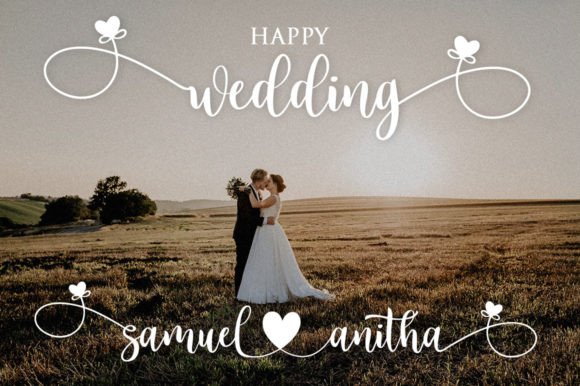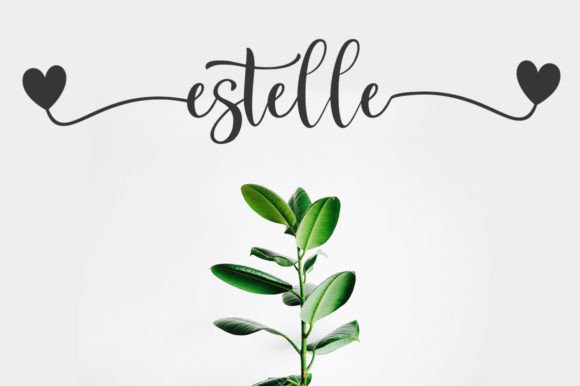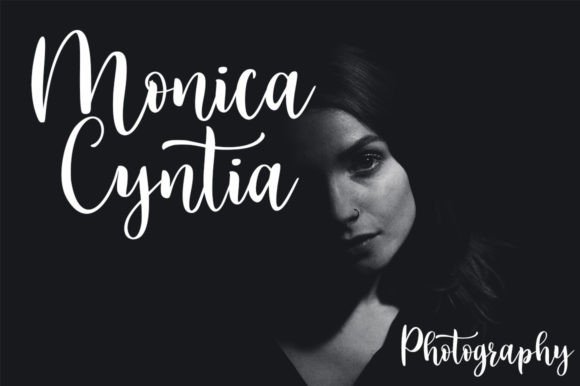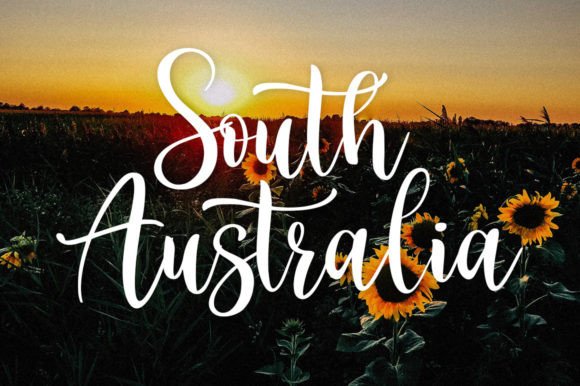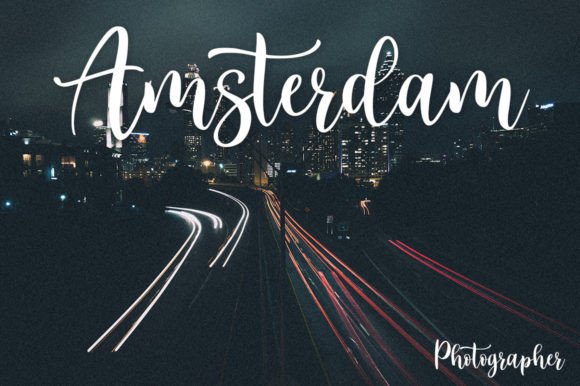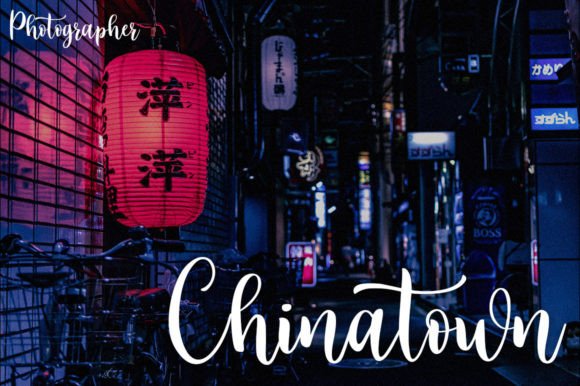
Astrid Font: Elevate Your Designs with Elegance and Sophistication
Astrid is an exquisite handwritten script font that has captured the hearts of designers and crafters alike. With its masterful blend of classy calligraphic influences and contemporary flair, Astrid is poised to become a true favorite in the world of typography. In this article, we’ll delve into the world of Astrid Font, exploring its unique features, design inspiration, and the endless possibilities it offers for elevating your projects to new heights.
The Story Behind Astrid Font
Astrid Font is a meticulously crafted handwritten script font that exudes elegance and sophistication. Its design is rooted in traditional calligraphy, yet infused with a modern twist that makes it feel fresh and contemporary. The result is a font that is both timeless and trendy, perfect for designers and crafters seeking to add a touch of luxury to their work.
Key Features of Astrid Font
- Exquisite Handwritten Script: Astrid Font boasts a beautiful, flowing script that is reminiscent of traditional calligraphy.
- Classy Calligraphic Influences: The font’s design is inspired by classic calligraphy, lending it an air of sophistication and elegance.
- Contemporary and Fresh: Astrid’s modern twist makes it feel fresh and contemporary, perfect for designers seeking a font that will make their work stand out.
- Highly Versatile: Astrid Font is suitable for a wide range of projects, from branding and advertising to packaging and digital media.
Design Inspiration
Astrid Font draws inspiration from the world of calligraphy, where the art of beautiful handwriting is revered. Its design is characterized by flowing lines, delicate strokes, and a sense of movement and fluidity. The font’s creator has masterfully distilled the essence of calligraphy into a digital font that is both authentic and innovative.
Using Astrid Font in Your Projects
Astrid Font is an incredibly versatile font that can be used in a wide range of projects, including:
- Branding and Advertising: Use Astrid Font to create stunning logos, advertisements, and marketing materials that exude elegance and sophistication.
- Packaging and Product Design: Add a touch of luxury to your product packaging with Astrid Font, perfect for high-end brands and premium products.
- Digital Media: Use Astrid Font in your digital projects, such as social media graphics, website headers, and email marketing campaigns.
- Crafting and Scrapbooking: Astrid Font is also perfect for crafters and scrapbookers seeking to add a touch of elegance to their projects.
Tips and Tricks for Working with Astrid Font
To get the most out of Astrid Font, here are a few tips and tricks to keep in mind:
- Experiment with Font Sizes: Astrid Font looks stunning in a range of font sizes, from large headings to smaller body text.
- Pair with Other Fonts: Try pairing Astrid Font with other fonts to create a unique and eye-catching typography combination.
- Use in Combination with Images: Astrid Font looks beautiful when used in combination with images, particularly those with a vintage or elegant aesthetic.
Astrid Font is a truly exceptional handwritten script font that is sure to capture your heart. With its exquisite design, classy calligraphic influences, and contemporary flair, Astrid is the perfect choice for designers and crafters seeking to elevate their projects to new heights. Whether you’re working on a branding campaign, packaging design, or digital project, Astrid Font is sure to bring a touch of elegance and sophistication to your work.